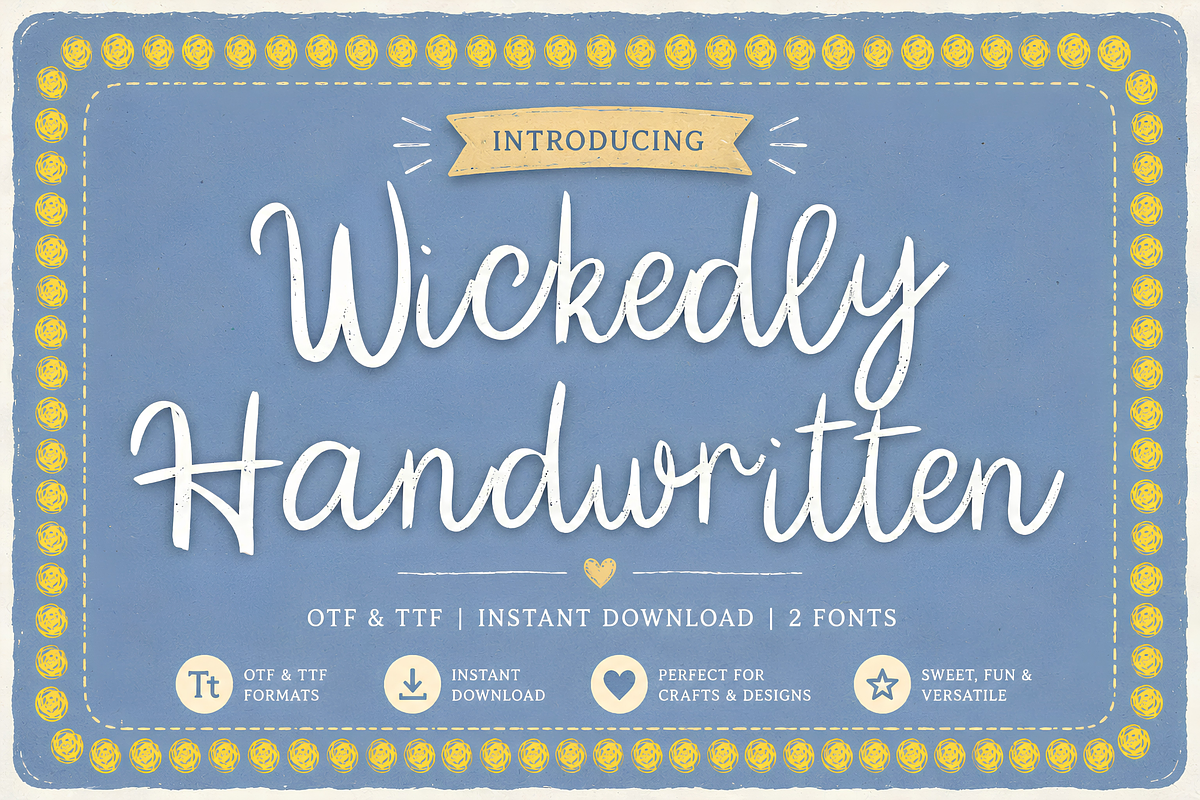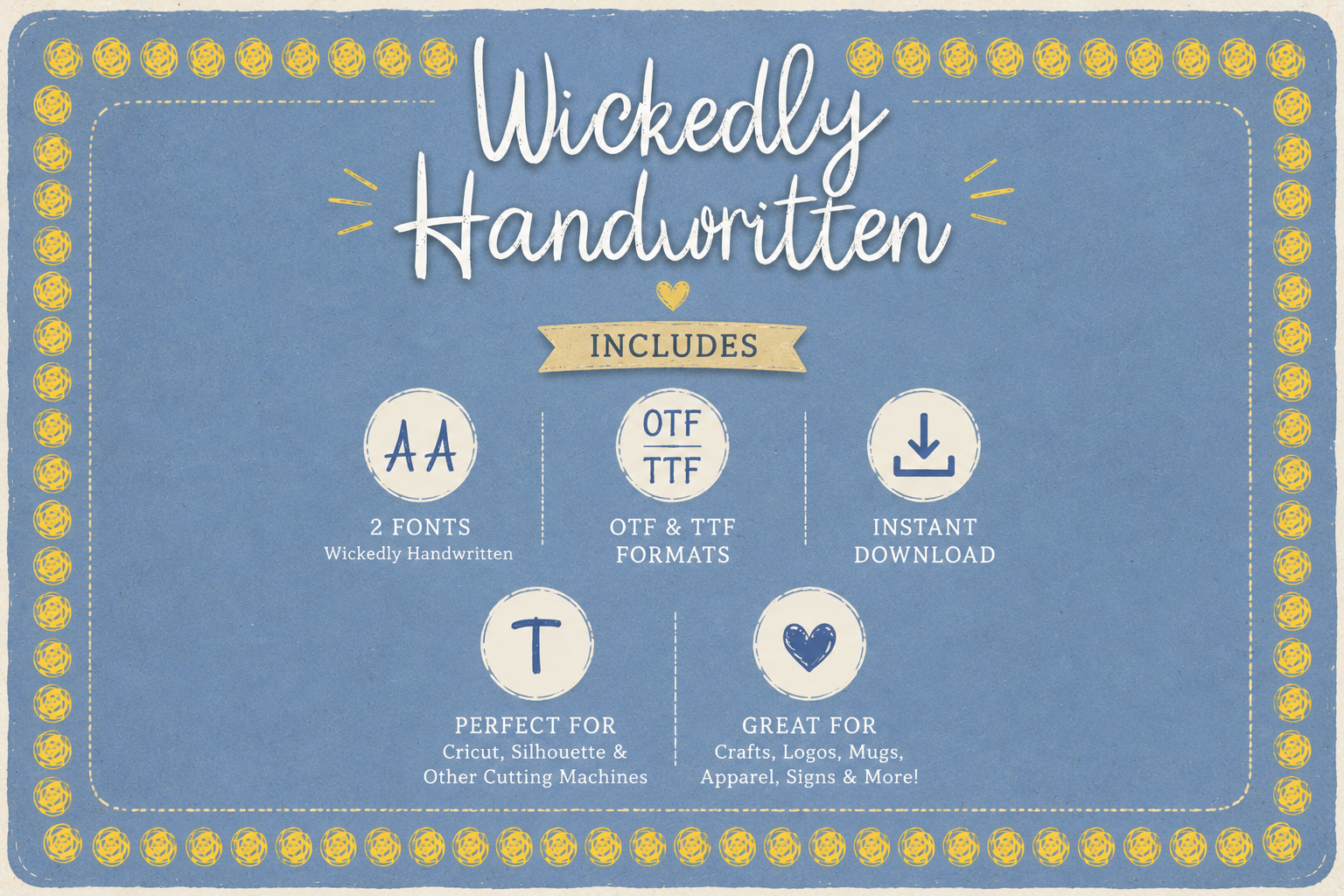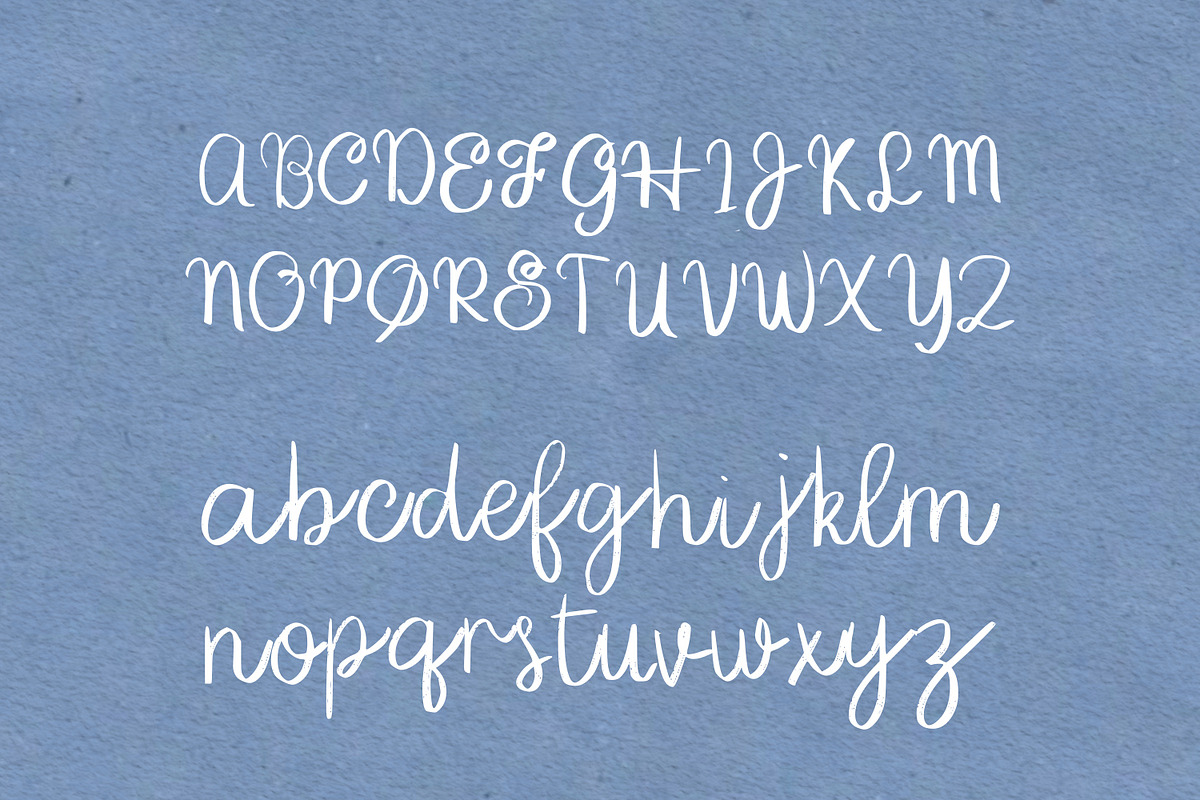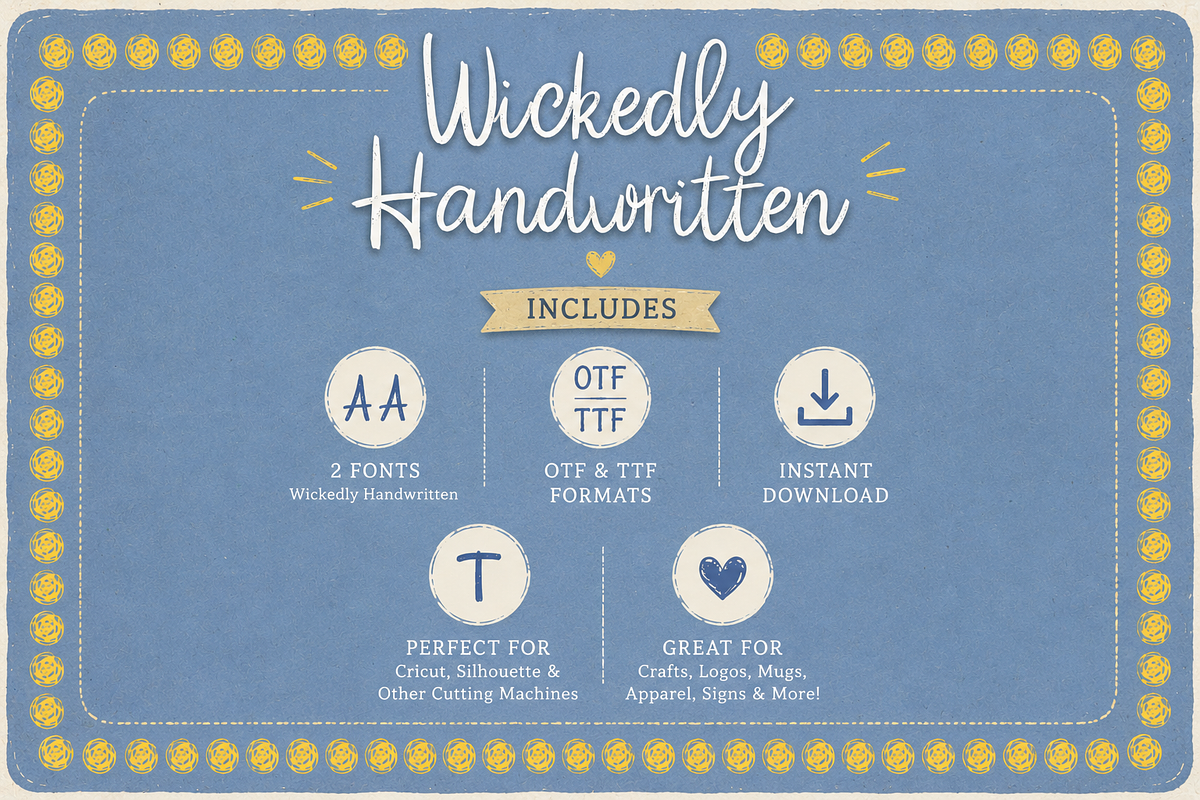
Wickedly Handwritten – Script Font
Wickedly Handwritten – Brush Script Font | OTF & TTF
Add a bold, artistic handwritten touch to your designs with Wickedly Handwritten! This expressive brush script font has a natural hand-lettered appearance with textured, slightly rough edges that give your projects an authentic handmade feel.
Whether you’re creating something edgy, playful, rustic, or handmade, Wickedly Handwritten adds personality and character to your designs.